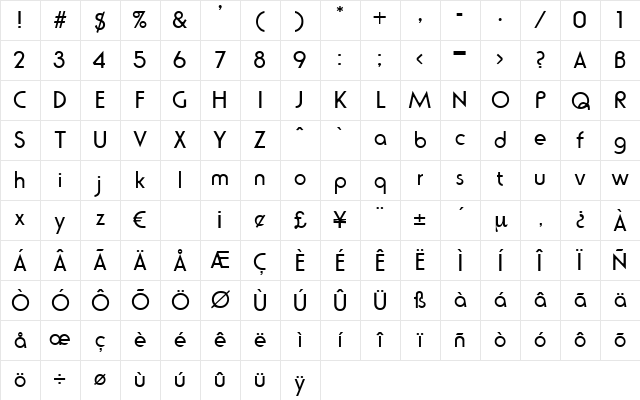
Poppea Regular Free Font
Poppea Regular
Design Context for Poppea
Poppea is a composed and adaptable typeface that performs quietly and consistently across a wide range of design contexts.